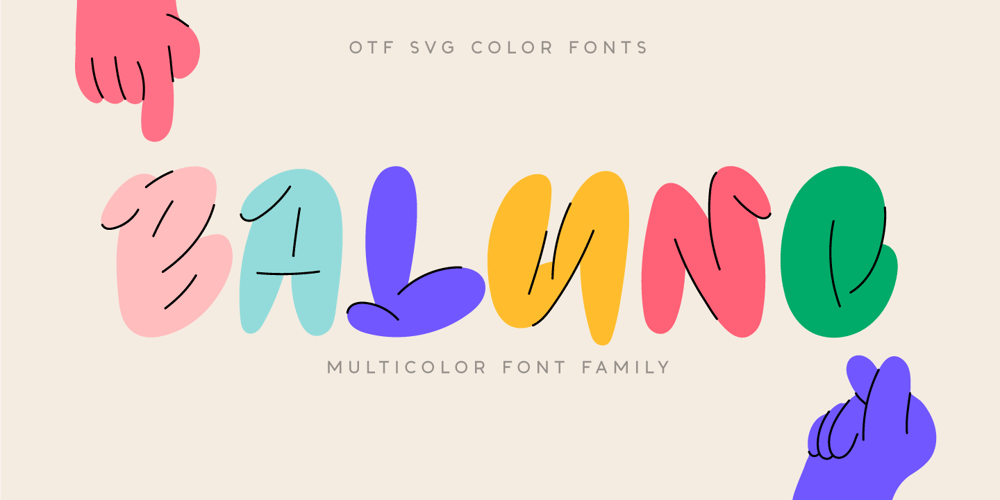
Baluno Font Family was designed by Lauritta Ivanova and published by Luxfont. Baluno contains 39 styles and family package options. Introducing is a fun and playful pouty Baluno font. Font has embodied the graphic trend of cartoon flat illustrations and will successfully complement modern designs. The font has 2 types of faces, which can be used both independently and together by alternating letters in one word to avoid repeating letters, creating a unique heading. Family is ideal for children’s themes, because the font resembles inflated balloons. Creates a relaxed mood and has fun. Set comes in many different carefully selected colors and gradient color options.Check the quality before purchasing and try the FREE DEMO version of the font to make sure your software supports color fonts. P.s. Have suggestions for color combinations? Write me an email with the subject “Baluno Color” on: ld.luxfont@gmail.comFeatures: Free Demo font to check it works. 2 types of faces. Lots of ready-made matched colors. Gradient color variants. Kerning. IMPORTANT: – Multicolor OTF version of this font will show up only in apps that are compatible with color fonts, like Adobe Photoshop CC 2017.0.1 and above, Illustrator CC 2018. Learn more about color fonts & their support in third-party apps on www.colorfonts.wtf-Don’t worry about what you can’t see the preview of the font in the tab “Individual Styles” – all fonts are working and have passed technical inspection, but not displayed, they just because the website MyFonts is not yet able to show a preview of colored fonts. Then if you have software with support colored fonts – you can be sure that after installing fonts into the system you will be able to use them like every other classic font. Question/answer: How to install a font? The procedure for installing the font in the system has not changed. Install the font as you would install the other fonts.How can I change the font color to my color? · Adobe Illustrator:Convert text to outline and easily change color to your taste as if you were repainting a simple vector shape. · Adobe Photoshop: You can easily repaint text layer with Layer effects and color overlay. ld.luxfont@gmail.com